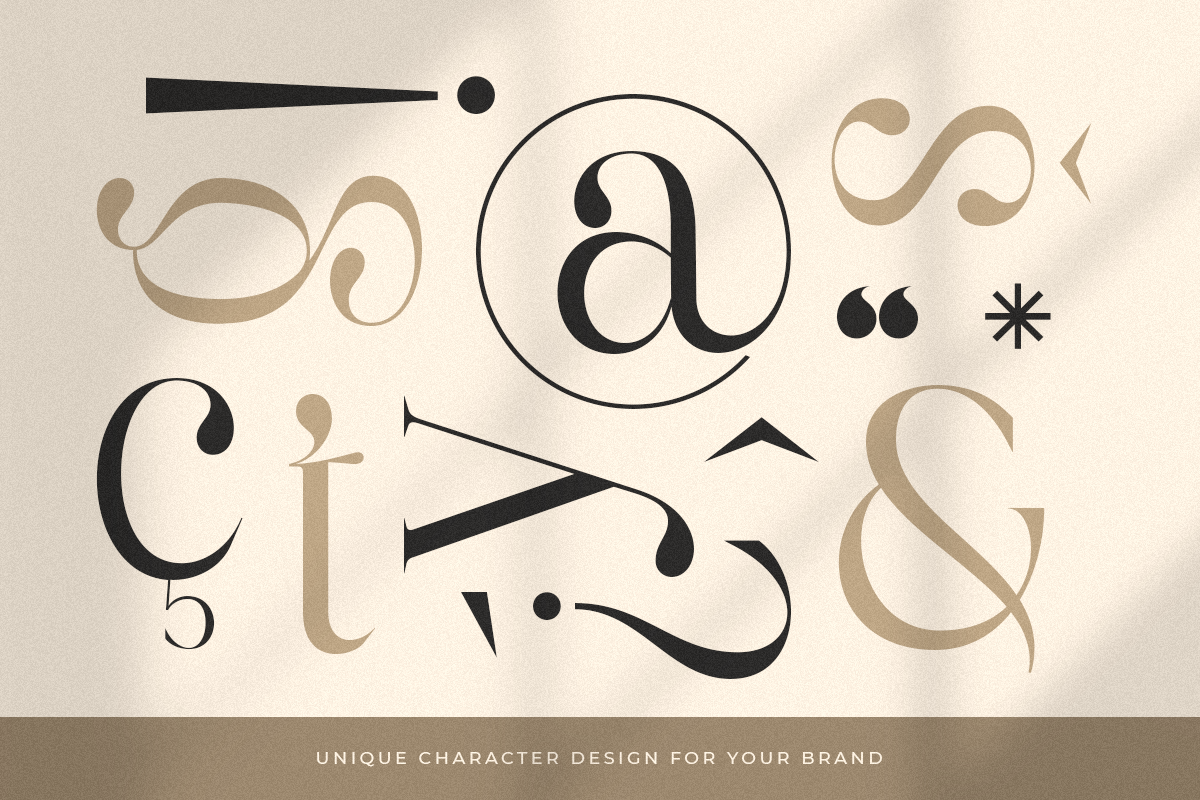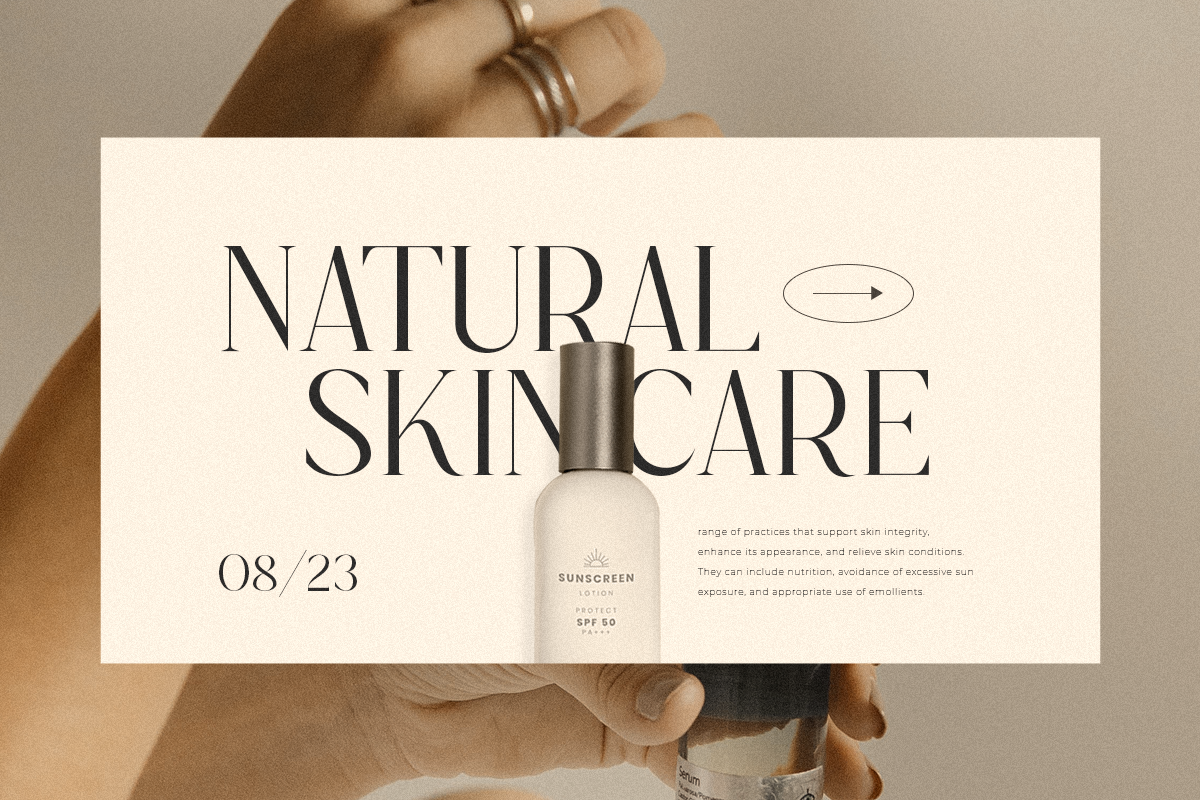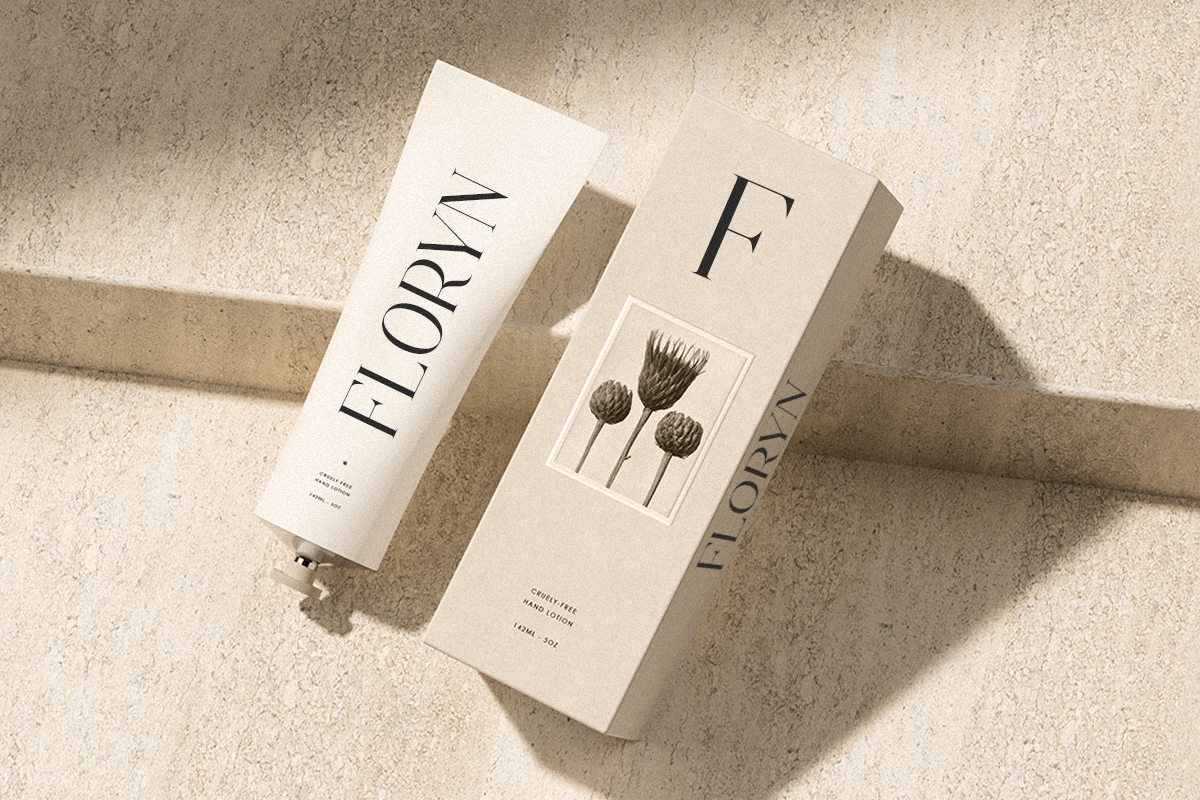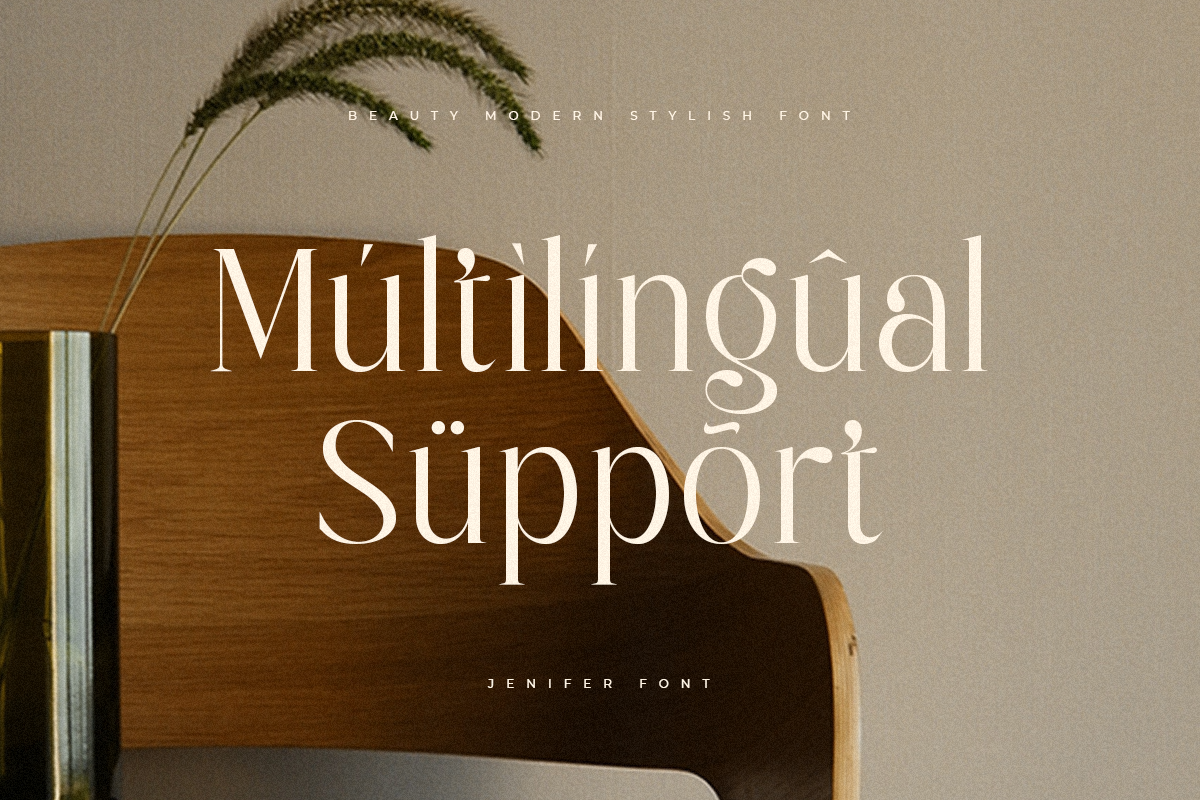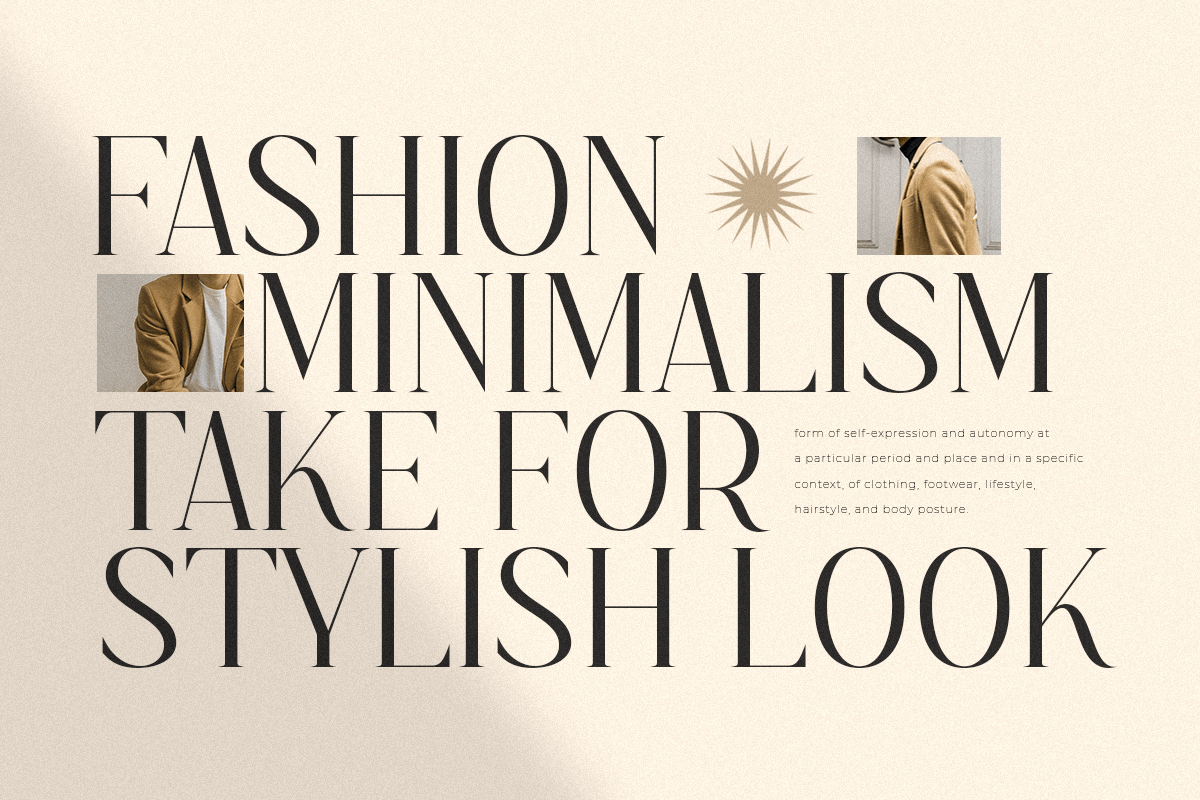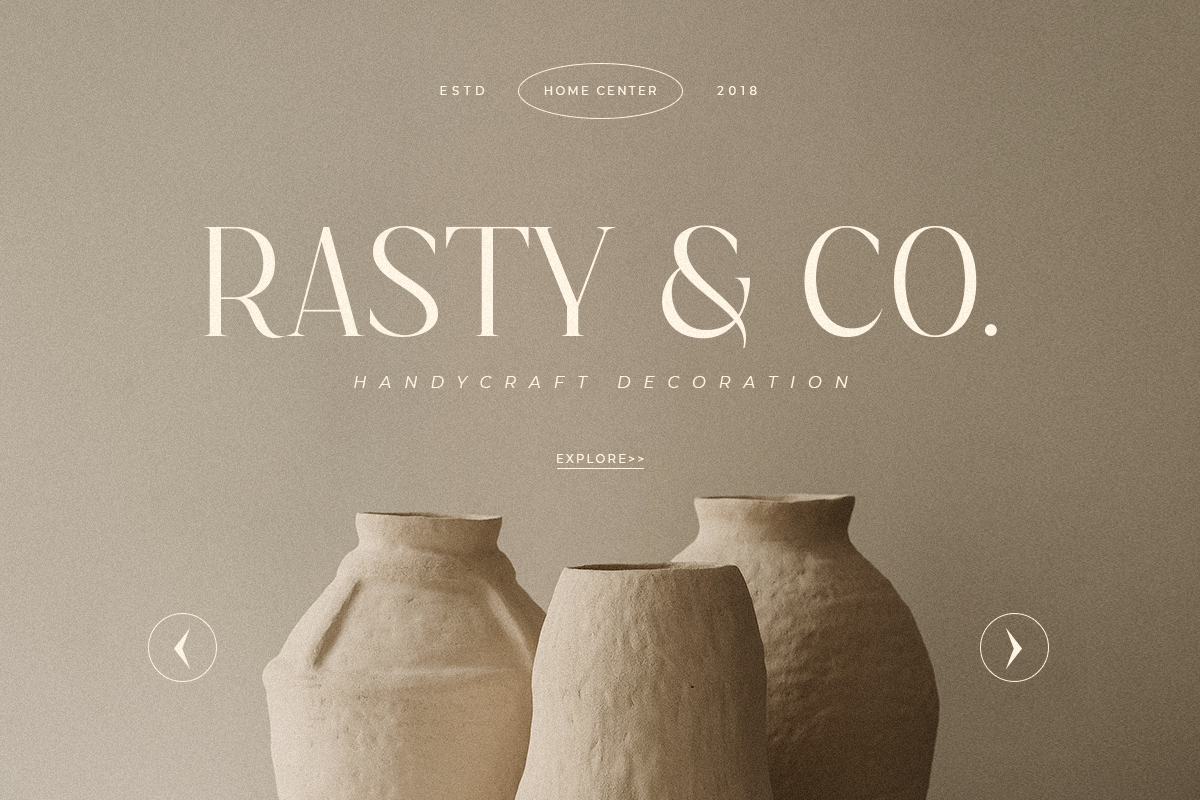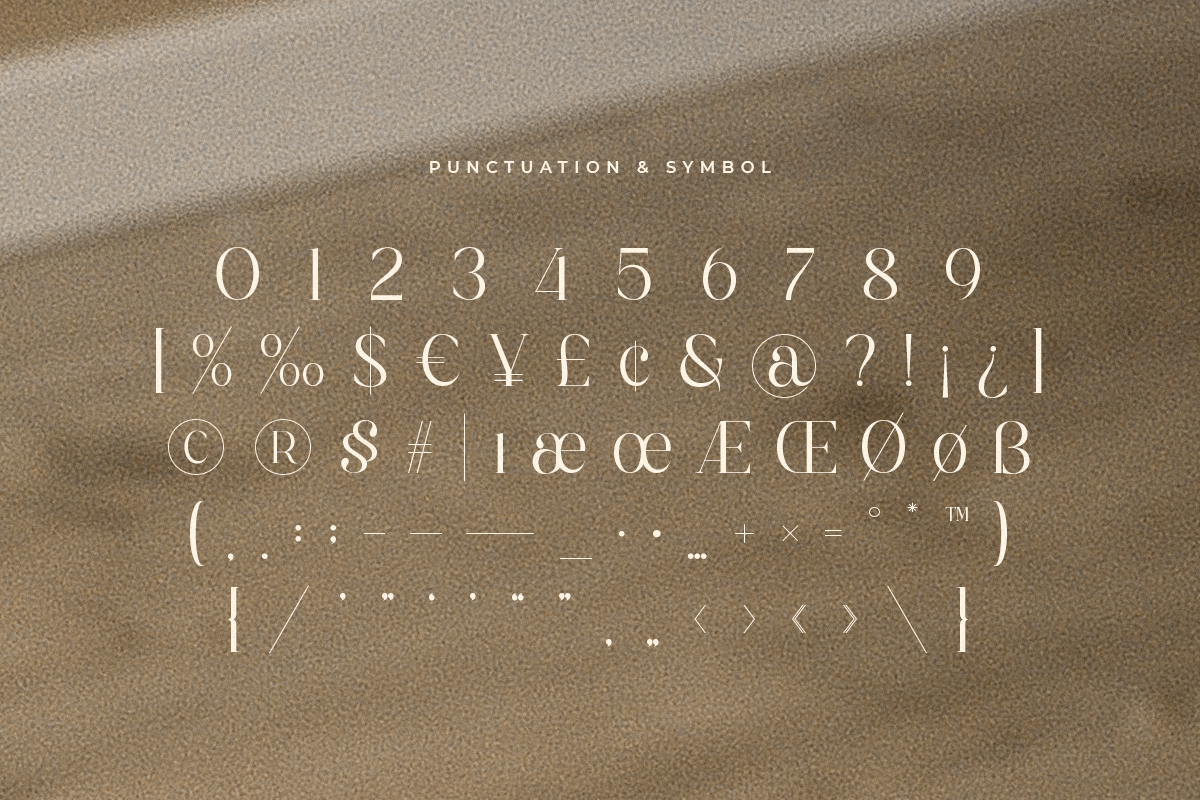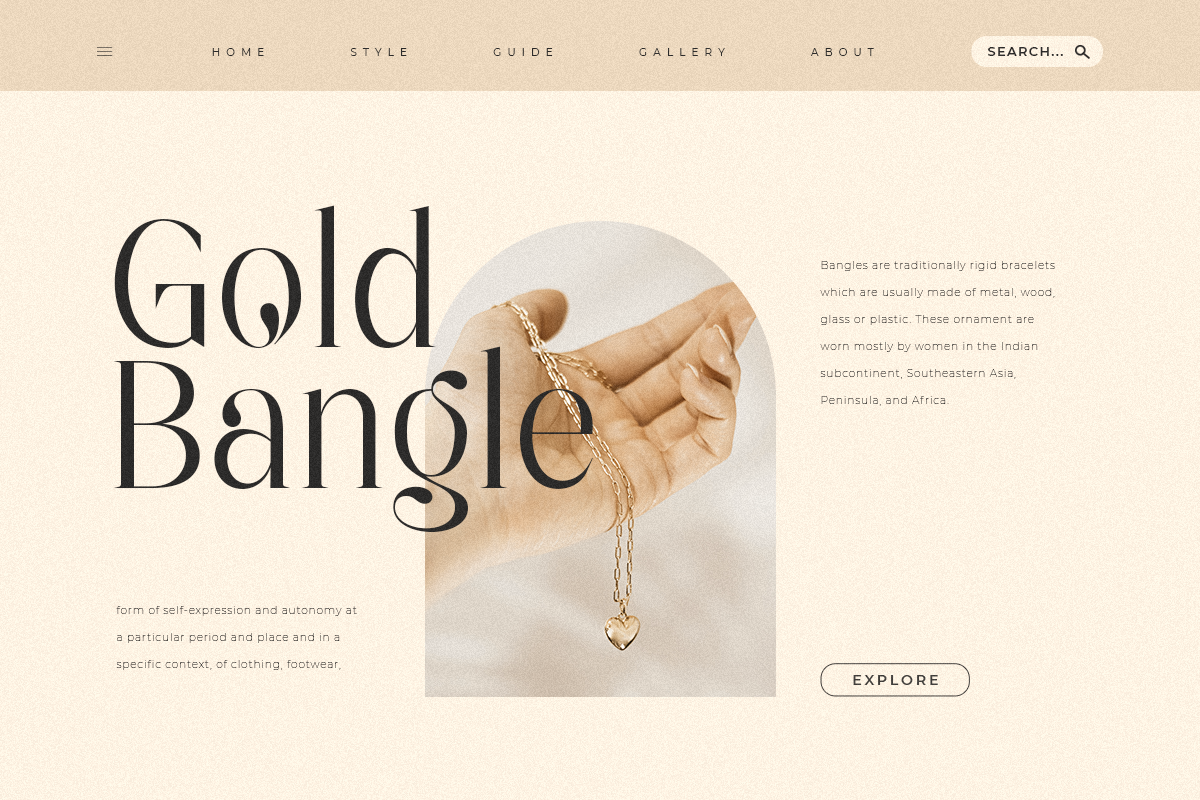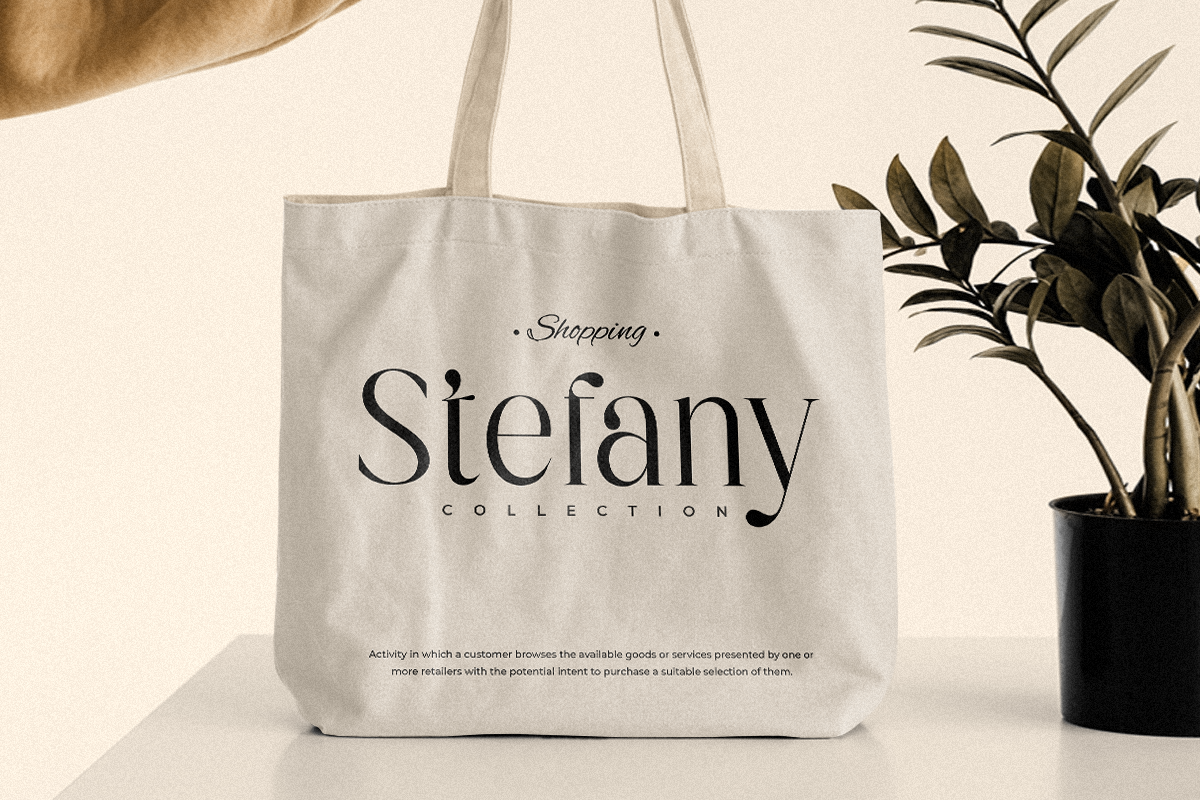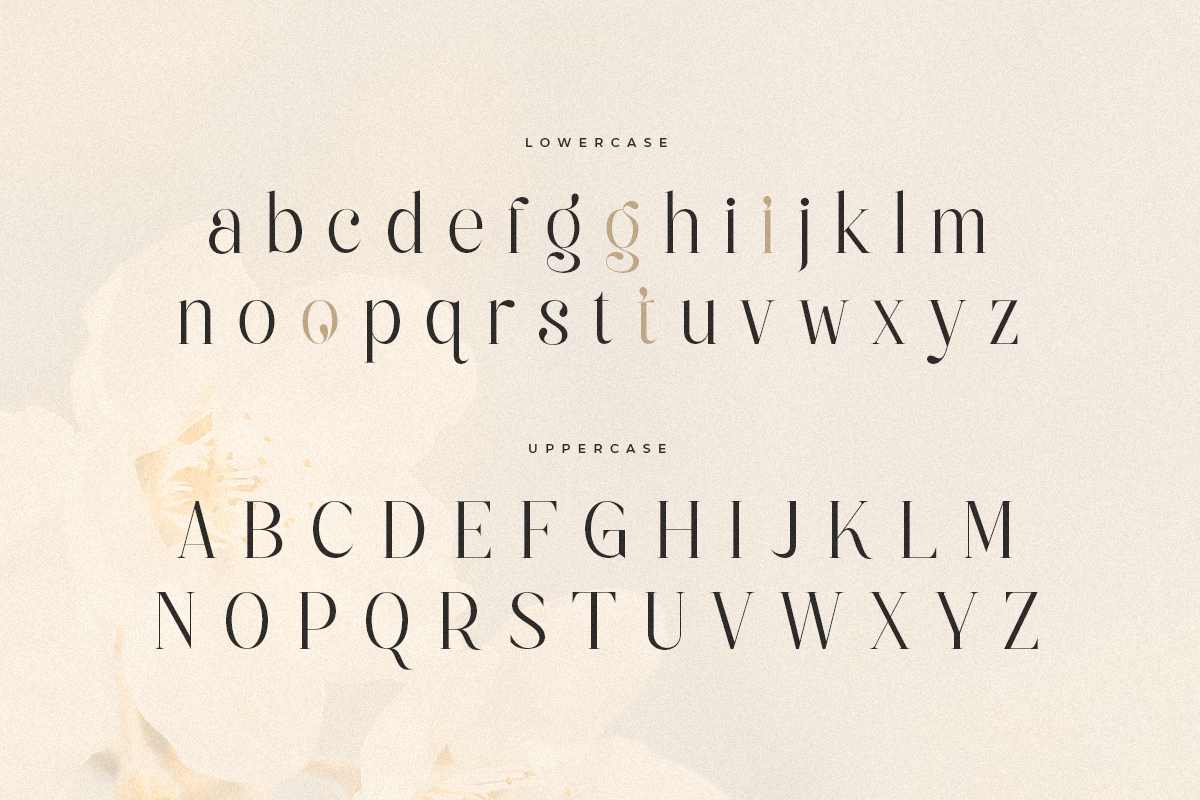
Jenifer - Beauty Modern Stylish Font
Jenifer Beauty Modern Stylish Font is a well-balanced contemporary font with a Elegant, unique, and versatile Luxury serif, font that you can combine to get any variations and unique shapes easily just in seconds with choose alternates of them. It is a serif display font with moderate contrast that perfect for branding projects, logo, wedding designs, social media posts, advertisements, product packaging, product designs, label, photography, watermark, invitation, stationery, and any projects, it makes with a high level of legibility.
- Character set A-Z
- Numerals & Punctuation
- Accented Characters (West Europe)